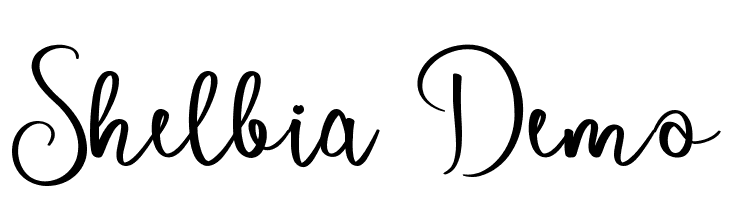
( Fonts by www.aenigmafonts.com )
A decorative font with characters inside heart shapes, perfect for romantic designs.
( Fonts by www.fontalicious.com Sponsoren Schriftart )
A lively, handwritten font with playful and dynamic letterforms.
( Fonts by dustBUST - Andreas Nylin )
A bold, outlined italic font with a modern and dynamic style.